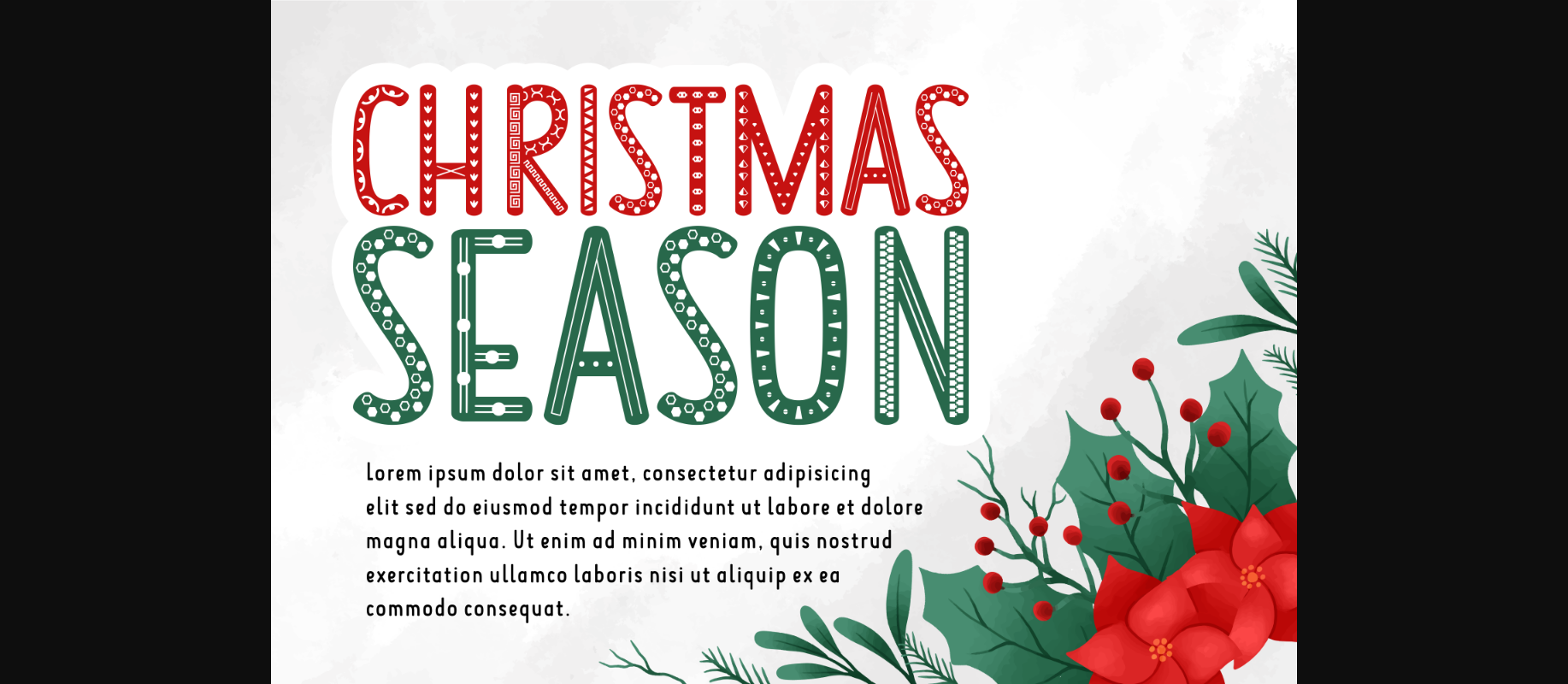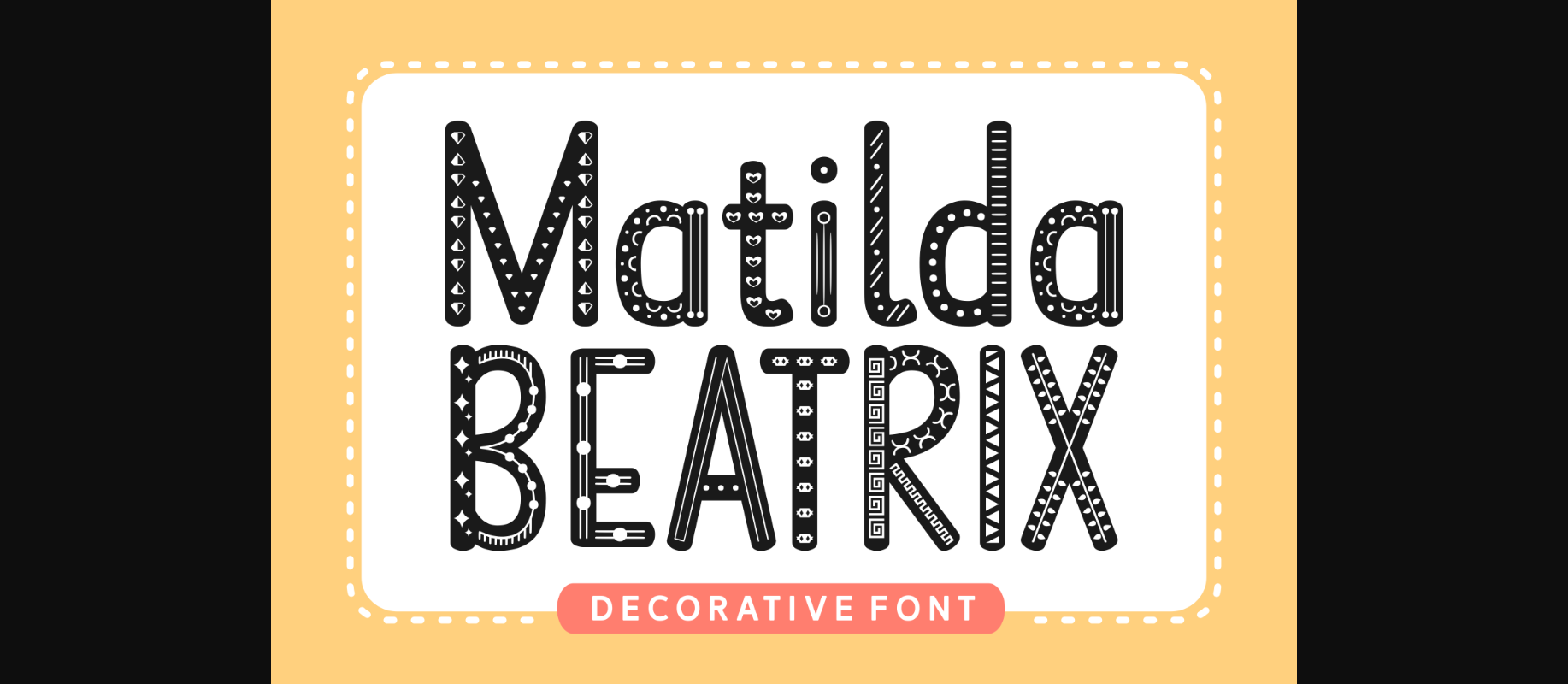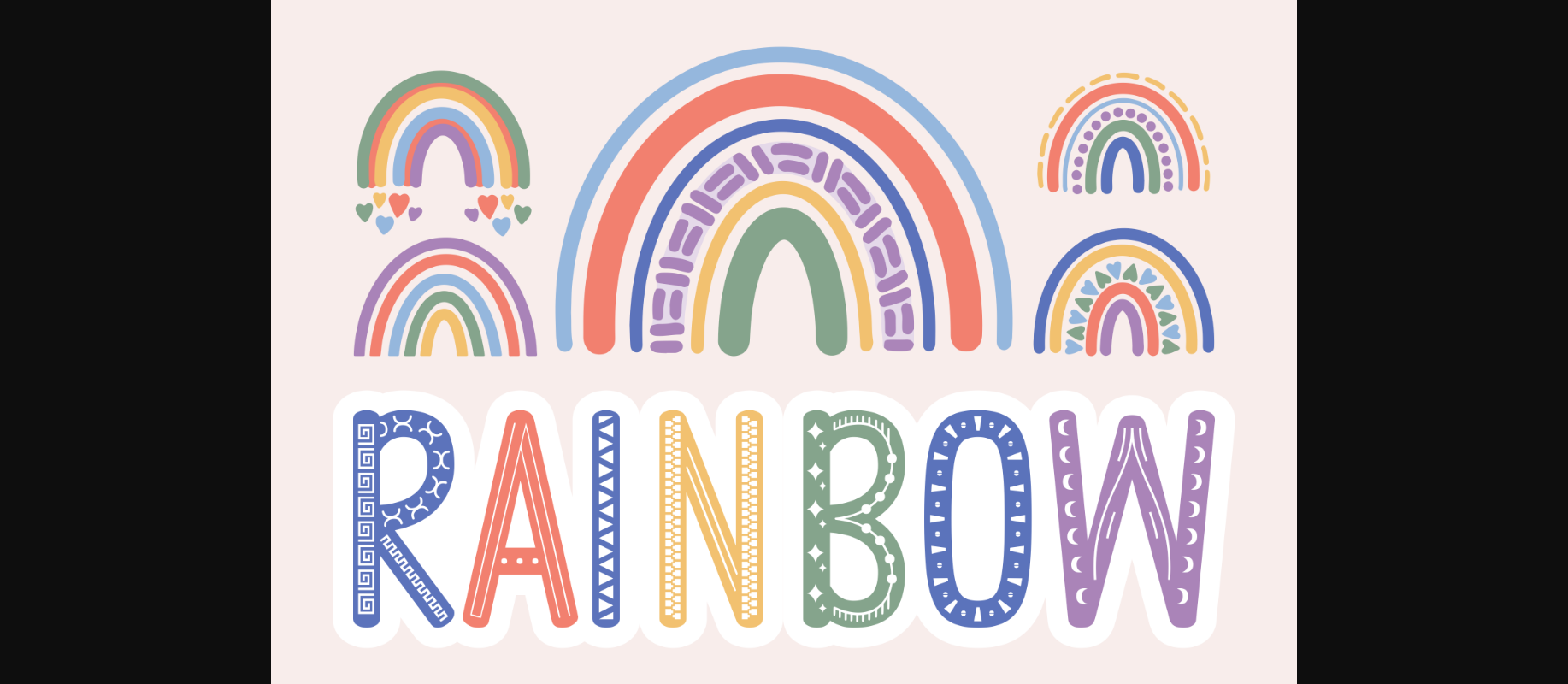
About Matilda Beatrix Font
Matilda Beatrix is a playful and fabulous decorative font. Featuring all kinds of shapes and decorations, this font is perfect for making any creation stand out. Give it a try in your next design project!